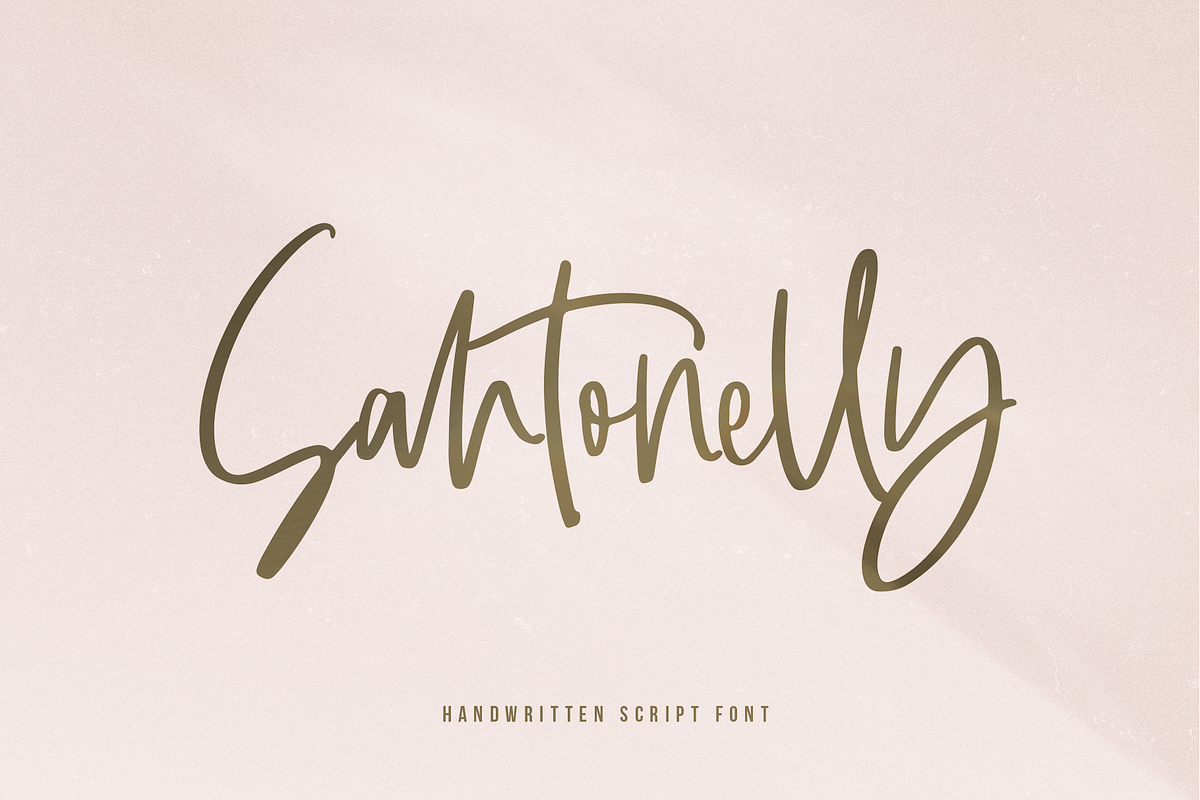
Add a touch of elegance and sophistication to your designs with Santonelly | A Script Font Free Download. This graceful script font features flowing letterforms and beautiful, organic curves, making it perfect for wedding invitations, branding, logos, social media content, and luxury packaging.
Santonelly brings timeless beauty with its handwritten, calligraphy-inspired strokes, giving your designs a personal and refined feel. It includes uppercase and lowercase letters, numerals, punctuation, and stylish ligatures—ideal for testing elegant, high-end layouts.